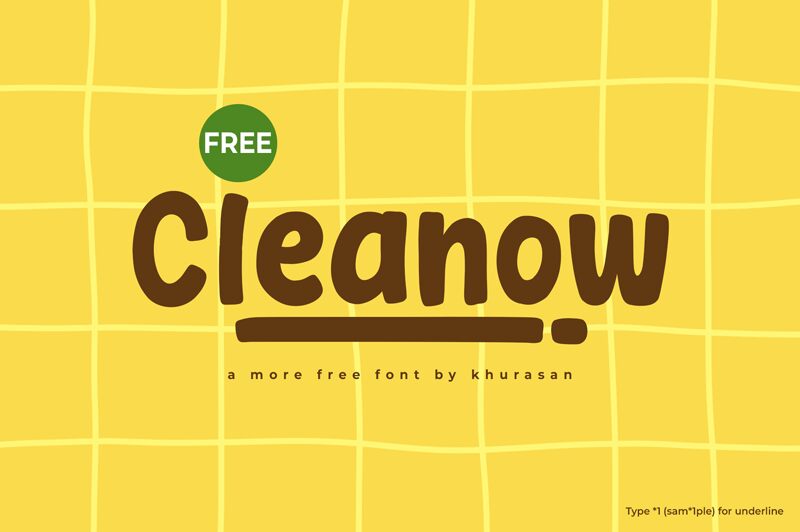
Cleanow
Cleanow font, designed by Khurasan, is a bold cartoon display typeface with rounded letters that give it a friendly, approachable look. Contemporary and casual in appearance, Cleanow has an informal and fun style that makes readers feel at ease. Use this playful sans serif font to create engaging short text headers.
Use this free handcrafted font for branding and advertising applications of all kinds including logos, product packaging designs, paper bags, box labels., leaflets and flyers. Website designs will also benefit from Cleanow’s smooth letters along with shop banners/signs, stickers or badges.